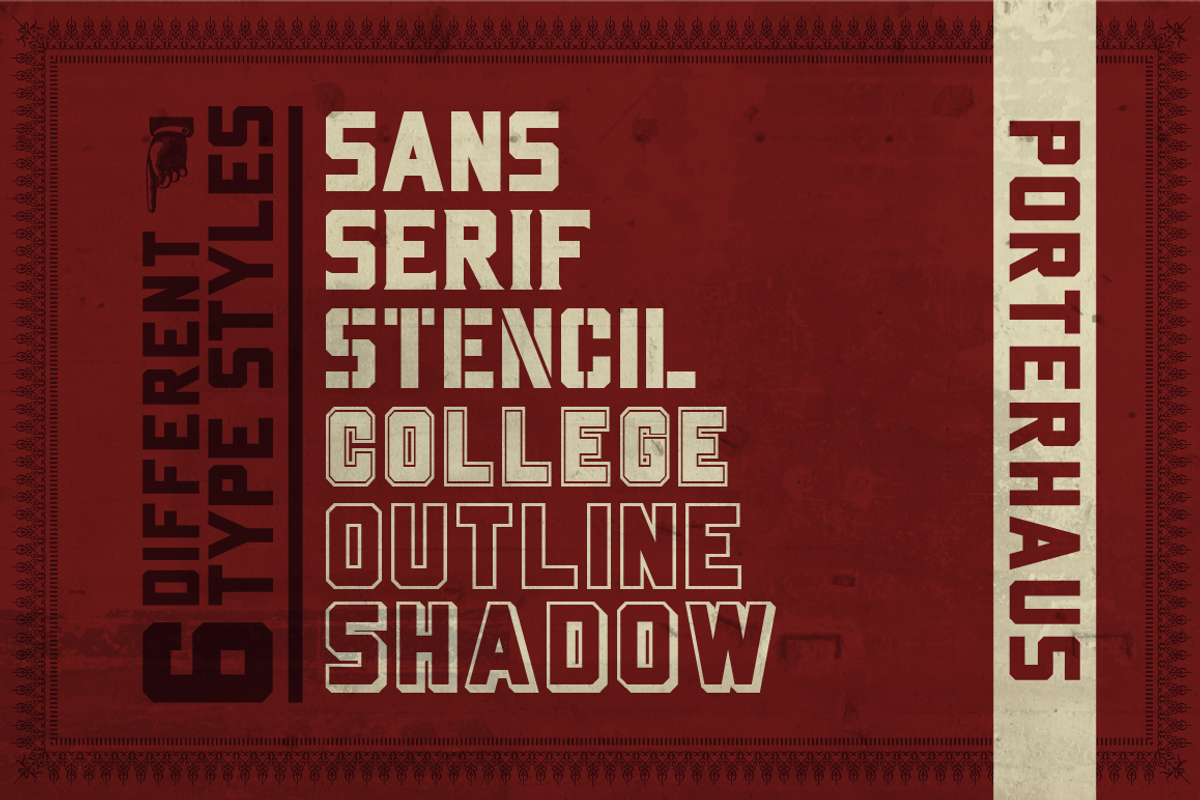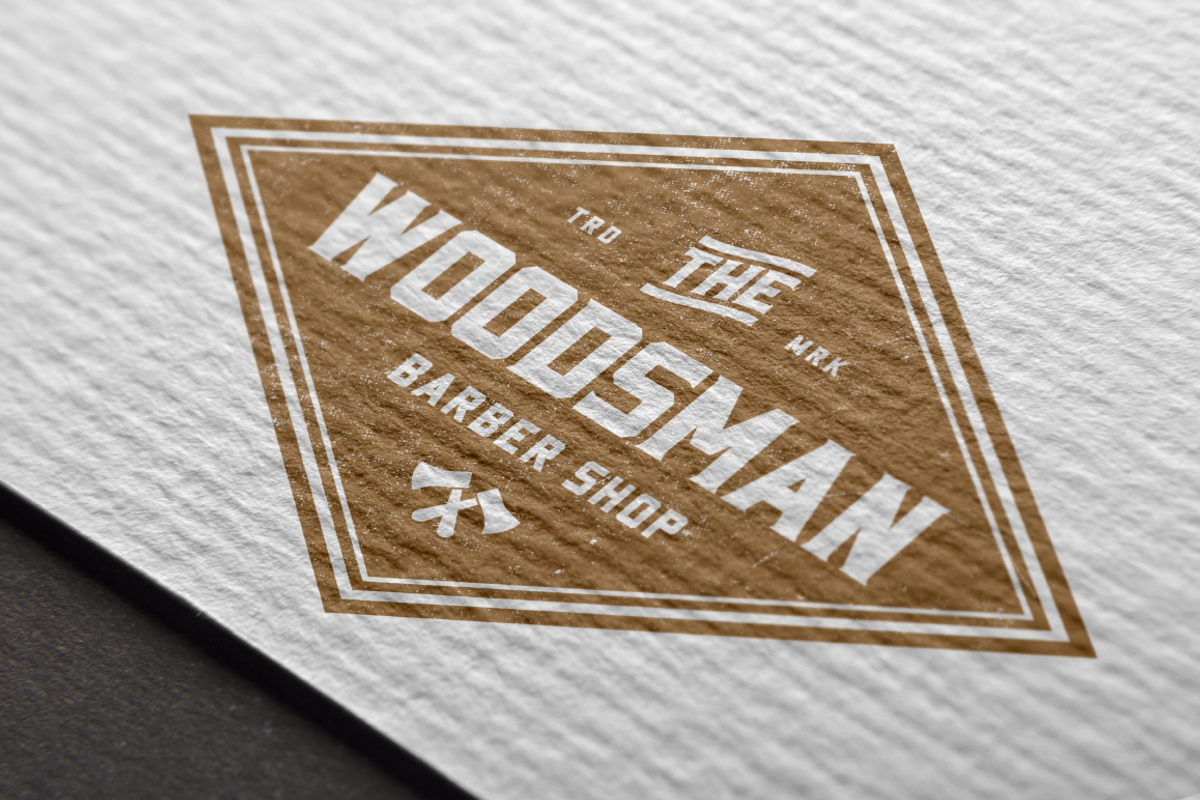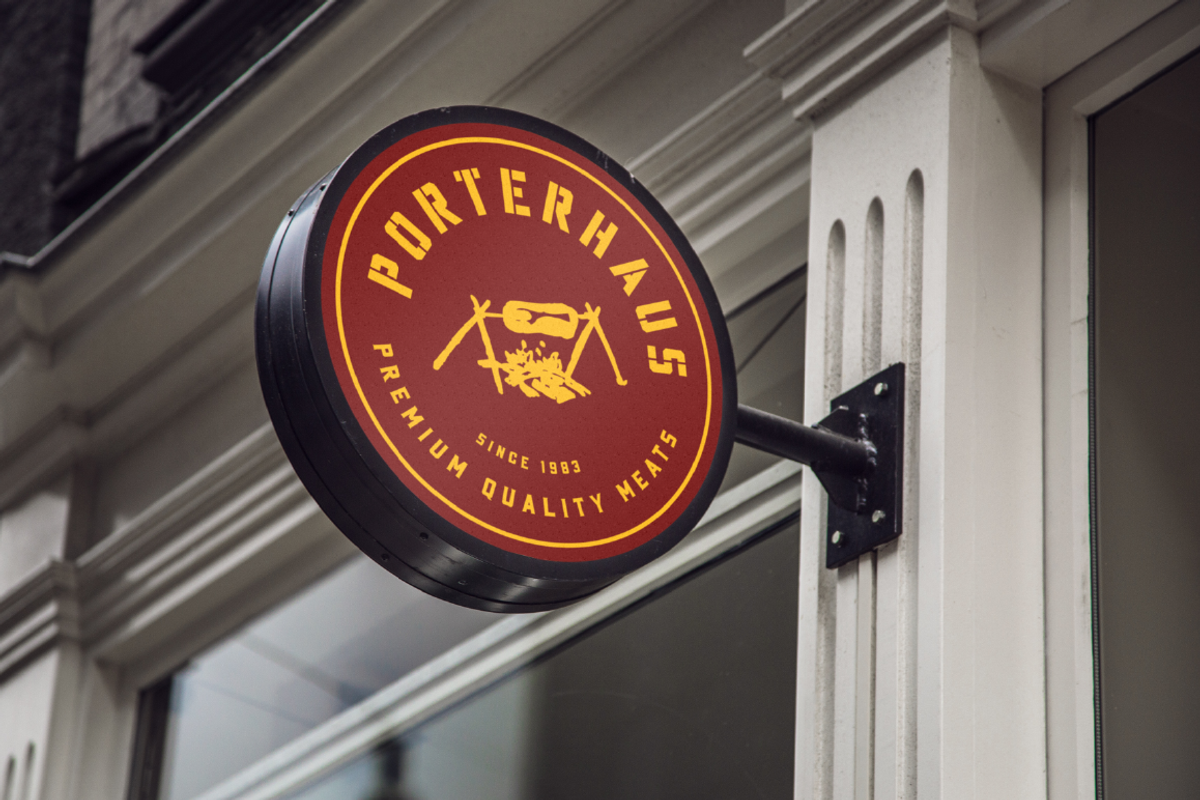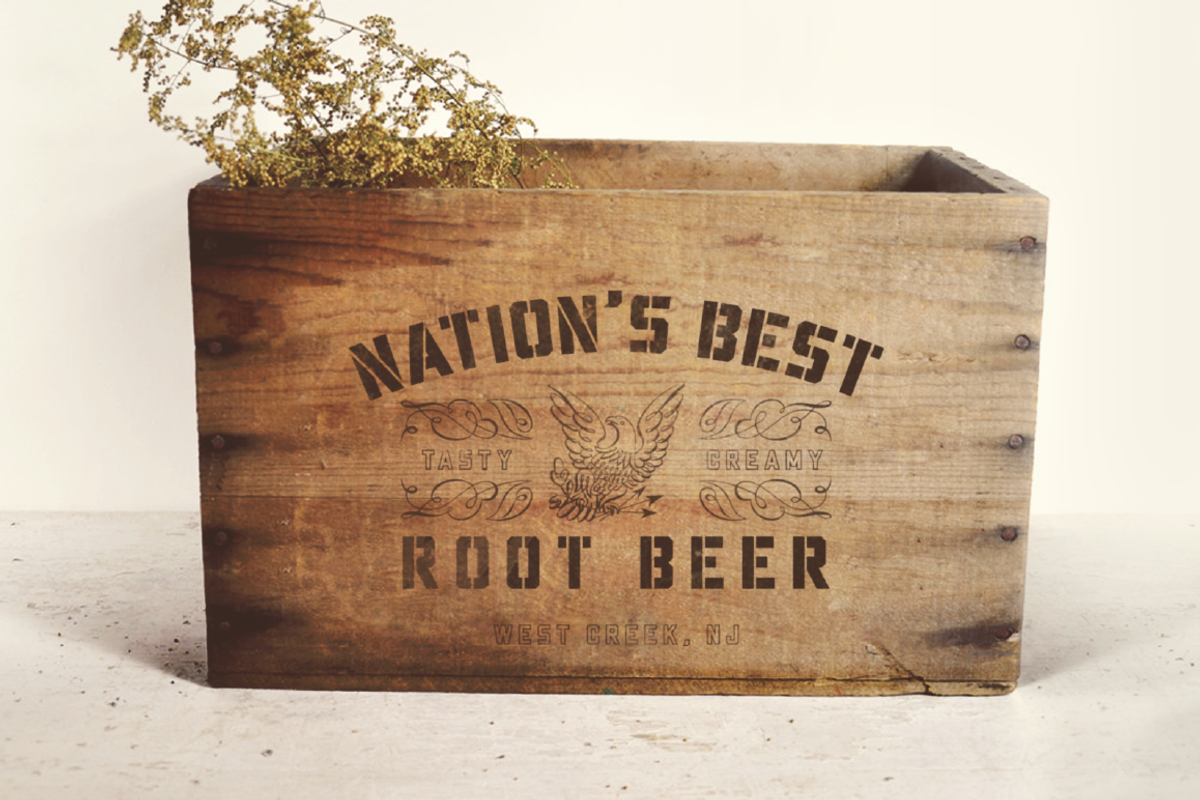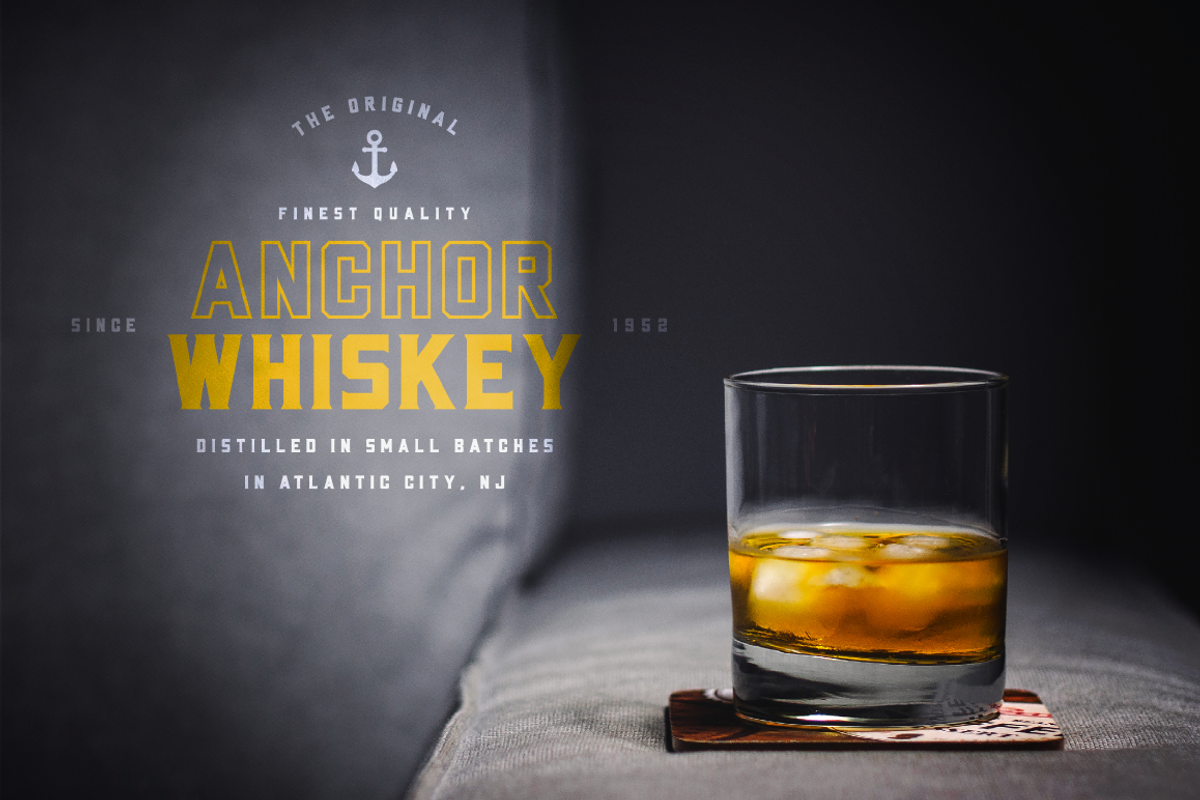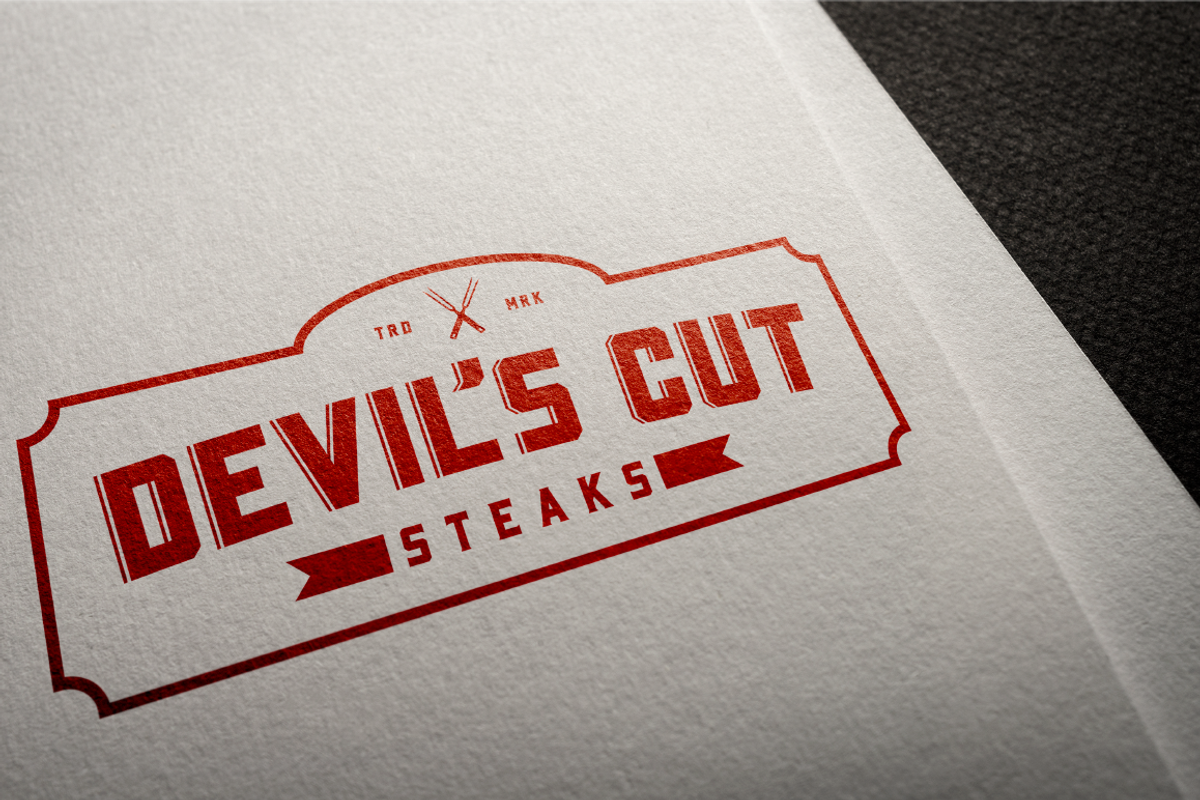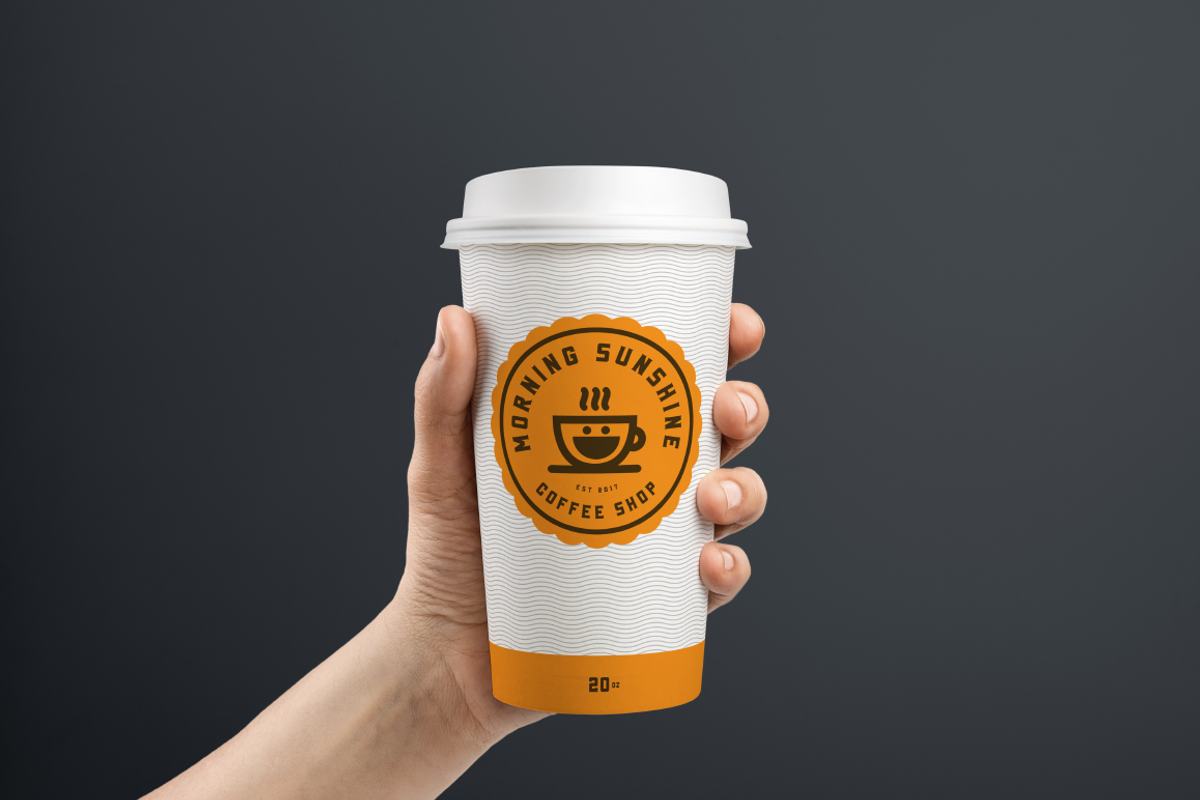
Porterhaus Typeface Family
A bold display typeface family with six different styles (Sans, Serif, Stencil, College, Outline, & Shadow) that look just as great separately as they do together. Porterhaus adds a strong punch to any logo, poster, headline or other design project.
Each font includes all capital letters, numbers, and basic punctuation.
PLUS: over 20 pre-built catchwords to make it even easier to add that something extra to your designs.